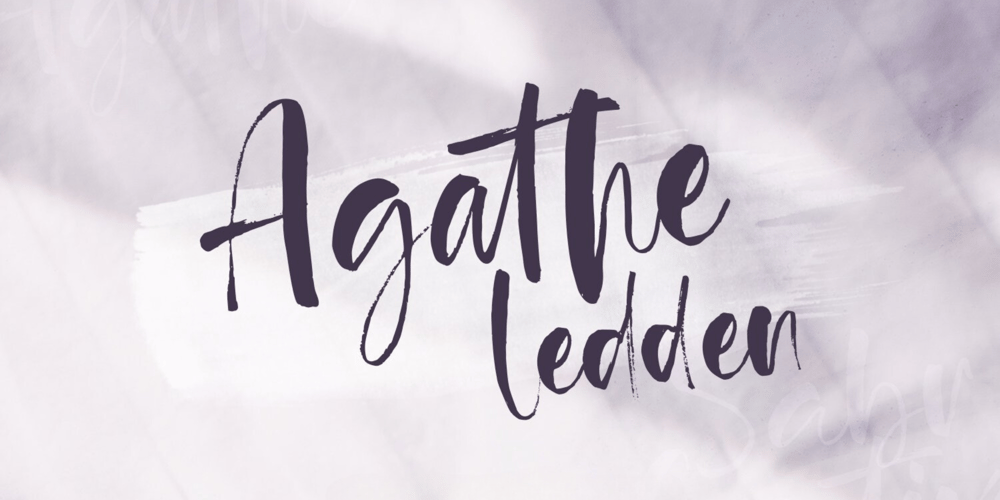
Agathe Ledden
Agathe Ledden font
Agathe Ledden Font Family was designed by Irpan Maulana and published by Sabrcreative. Agathe Ledden contains 1 styles and family package options. Discover Agathe Ledden, a captivating brush script font that brings a dynamic and expressive touch to your designs. With its fluid brush strokes, Agathe Ledden exudes a sense of energy and authenticity, making it perfect for adding a personal and artistic flair to your projects. Whether you’re designing logos, branding materials, posters, or social media graphics, this versatile script font is sure to leave a lasting impression.Agathe Ledden offers a harmonious blend of uppercase and lowercase letters, ensuring a seamless flow and balance in your typography. Its natural and organic appearance creates a handcrafted feel, evoking a sense of warmth and personality in your designs. With the inclusion of numbers and punctuations, Agathe Ledden ensures that your message is communicated effectively and professionally.This script font is not limited by language barriers, as it features multilingual support. It allows you to reach a global audience and incorporate different languages seamlessly into your designs. Whether you’re targeting local or international markets, Agathe Ledden enables you to connect with diverse audiences and create a truly inclusive experience.Agathe Ledden also features PUA encoding, granting easy access to a variety of ligatures. These ligatures add stylistic variations and decorative elements, giving you the freedom to customize and enhance your text. The versatility of Agathe Ledden allows you to create unique and captivating designs that reflect your individual style and vision.